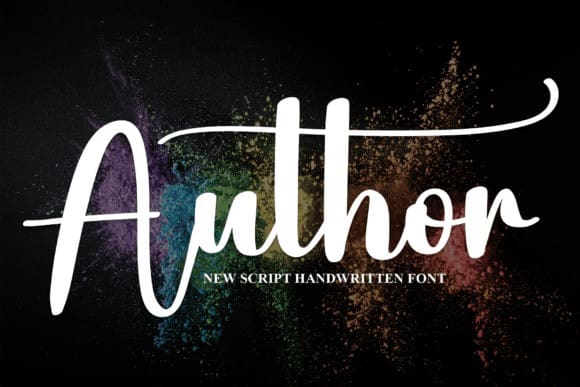
Author Script Font
Author Script Font, perfect for wall displays, wedding invitations, social media post logos, advertisements, product packaging, product designs, labels, photography, watermarks, invitations, stationery, and any project that requires a handwritten taste.